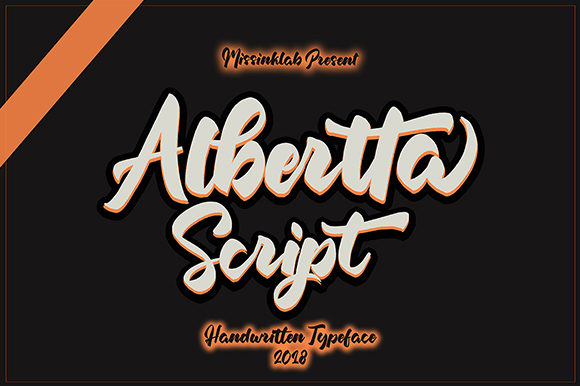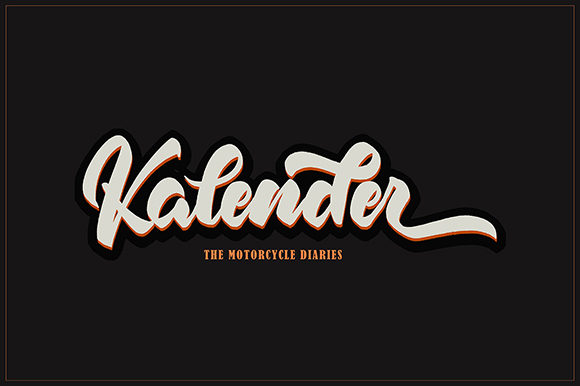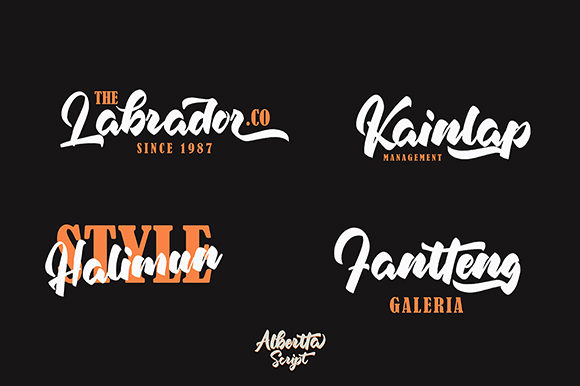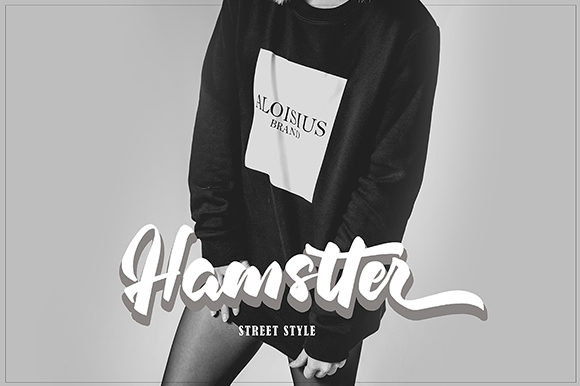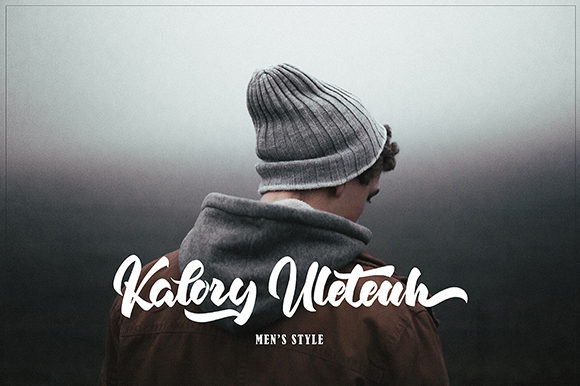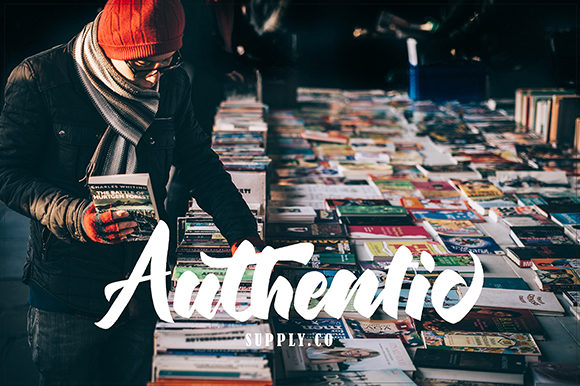
HomeScript FontsAlbertta Font Script Fonts Albertta Font FacebookXPinterestWhatsApp Albertta Font Poster 2 Albertta Font Poster 3 Albertta Font Poster 4 Albertta Font Poster 5 Albertta Font Poster 6 About Albertta Font Albertta is an amazingly bold handwritten font with a bold feel. It will turn any design idea into a stand out! DOWNLOAD ON CREATIVE FABRICAThis font is sold and delivered by Creative Fabrica. Font Canyon may earn a commission if you buy through this link. People also explored Jumping Bean Greaner Font Algorisma Font Midnight Blackfire Font Essencial Font Catherine Berndt Font Hazelnuts Font Chilwell EZBorder Font 338 0 TagsAlbertta Font Previous articleCatherine FontNext articleAlcott Ghalliana Font LEAVE A REPLY Cancel reply Comment: Please enter your comment! Name:* Please enter your name here Email:* You have entered an incorrect email address! Please enter your email address here Website: Save my name, email, and website in this browser for the next time I comment. Personal Use Free Vanilla Whale Personal Use Free Read more about this font Gila Personal Use Free Read more about this font Cadosa Personal Use Free Read more about this font Cleopatra Font Personal Use Free Read more about this font BLOG How to Install and Use Fonts on Windows, macOS, and Web Projects How to Install and Use Fonts on Windows, macOS, and Web Projects Fonts are a crucial part of design and branding. Whether you’re designing a... To increase your work productivity, choose the most readable fonts. 5 Fonts That Will Dominate Design Trends in 2026 Where to Buy American Fonts Online in 2024